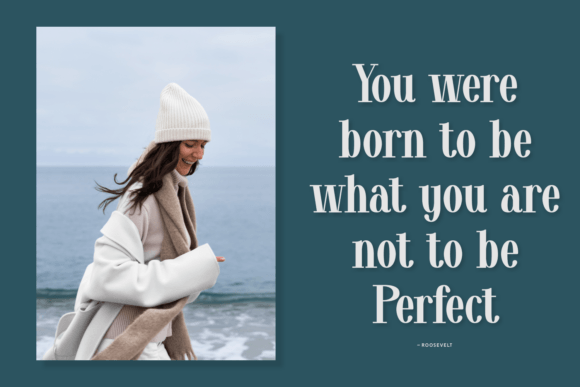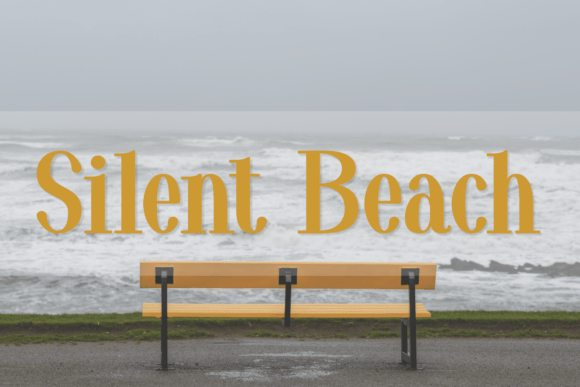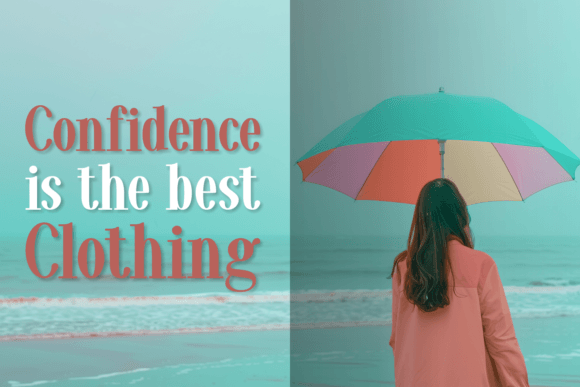
Dazzled Font: Elevate Your Designs with Elegance and Readability
In the world of typography, fonts play a crucial role in conveying the message and tone of a design. For designers and crafters, finding the perfect font that combines style, elegance, and readability can be a daunting task. However, with the introduction of Dazzled Font, a modern serif font that exudes sophistication and clarity, your search is over. In this article, we’ll dive into the features, benefits, and uses of Dazzled Font, and explore how it can elevate your designs to new heights.
The Essence of Dazzled Font
Dazzled Font is a modern serif font that seamlessly blends elegance and readability. Its clean lines, stylish curves, and contemporary feel make it an ideal choice for a wide range of design projects. Whether you’re working on a logo, brochure, website, or social media graphics, Dazzled Font is the perfect companion to help you achieve your creative goals.
Key Features of Dazzled Font
• Elegant and Refined: Dazzled Font boasts a sophisticated and refined design, perfect for creating a lasting impression on your audience.
• Clean Lines and Curves: The font’s clean lines and stylish curves ensure that your text is easy to read, even at smaller font sizes.
• Contemporary yet Classic: Dazzled Font strikes the perfect balance between modernity and classic style, making it versatile enough to suit any design project.
• Highly Readable: The font’s clear and concise design ensures that your text is easily readable, reducing eye strain and improving user experience.
Benefits of Using Dazzled Font
So, why choose Dazzled Font for your design projects? Here are just a few benefits that make it an attractive choice:
• Enhance Your Brand’s Image: With Dazzled Font, you can create a professional and cohesive brand image that resonates with your target audience.
• Improve Readability: The font’s high readability ensures that your message is conveyed clearly, reducing the risk of misinterpretation.
• Versatility: Dazzled Font is suitable for a wide range of design projects, from print materials to digital platforms.
• Easy to Pair: The font’s neutral design makes it easy to pair with other fonts, allowing you to create a unique and harmonious typography.
Design Applications of Dazzled Font
Dazzled Font is a versatile font that can be used in various design applications, including:
• Print Design: Use Dazzled Font for brochures, flyers, posters, and business cards to create a lasting impression.
• Digital Design: Apply Dazzled Font to your website, social media graphics, and email marketing campaigns to enhance user experience.
• Branding: Establish a strong brand identity with Dazzled Font, perfect for logos, packaging, and advertising materials.
Tips for Using Dazzled Font Effectively
To get the most out of Dazzled Font, here are some expert tips:
• Experiment with Font Sizes: Use Dazzled Font in various font sizes to create visual hierarchy and emphasize key messages.
• Pair with Complementary Fonts: Combine Dazzled Font with complementary fonts to create a unique and engaging typography.
• Adjust Line Spacing: Optimize line spacing to improve readability and enhance user experience.
In conclusion, Dazzled Font is a modern serif font that offers the perfect blend of elegance, readability, and versatility. Its clean lines, stylish curves, and contemporary feel make it an excellent choice for designers and crafters looking to elevate their designs. With its wide range of applications, benefits, and ease of use, Dazzled Font is sure to become a staple in your font library. So, why wait? Discover the power of Dazzled Font and take your designs to new heights!